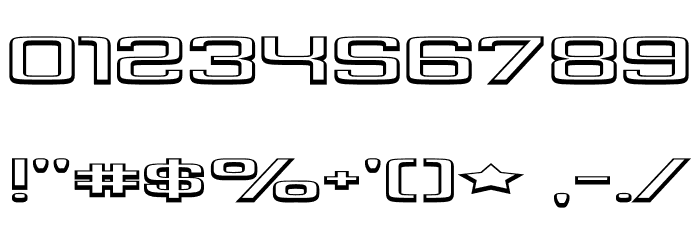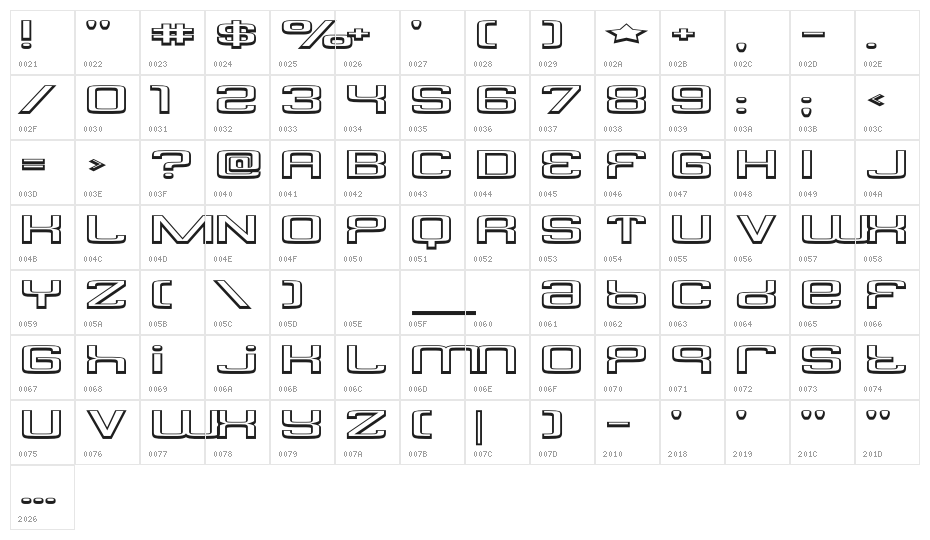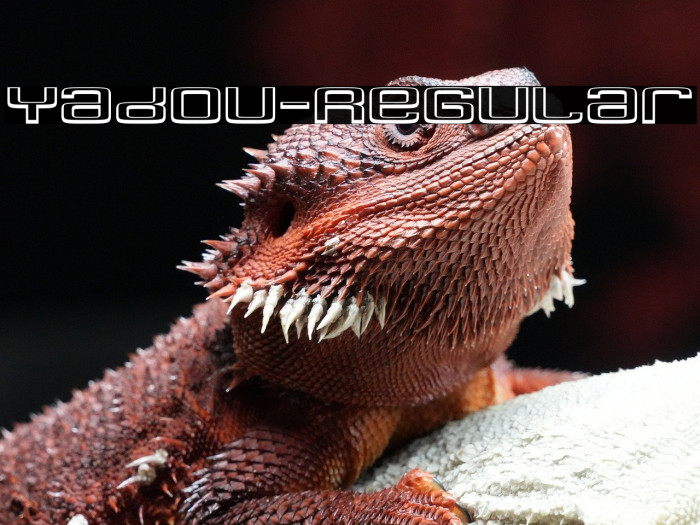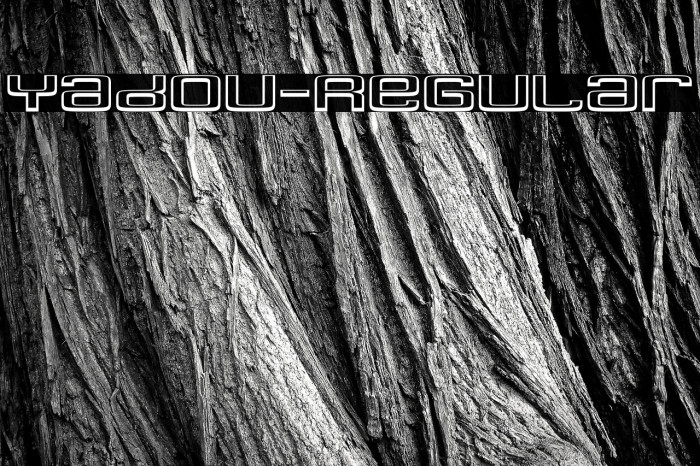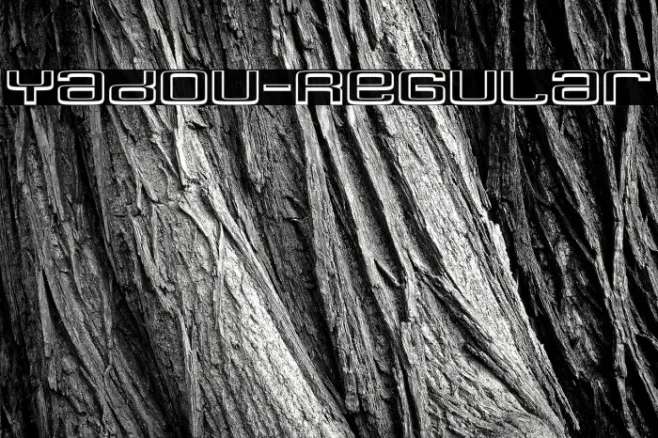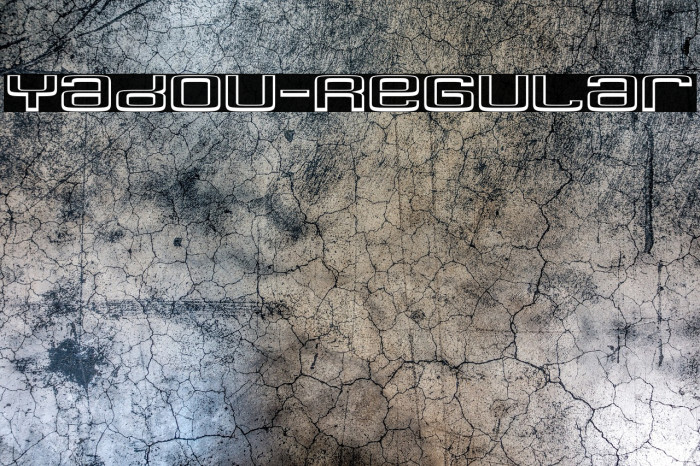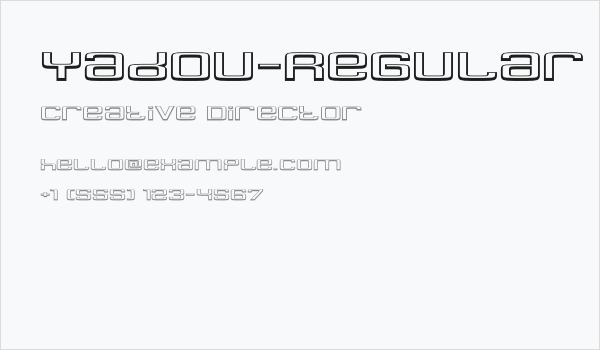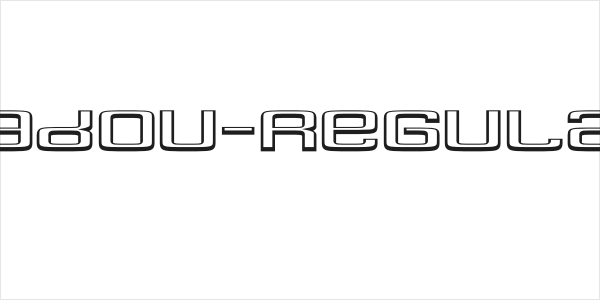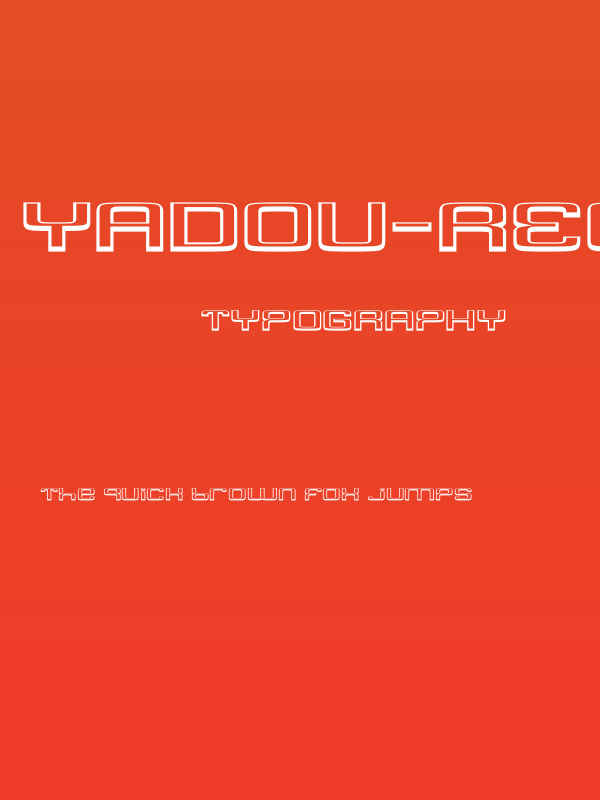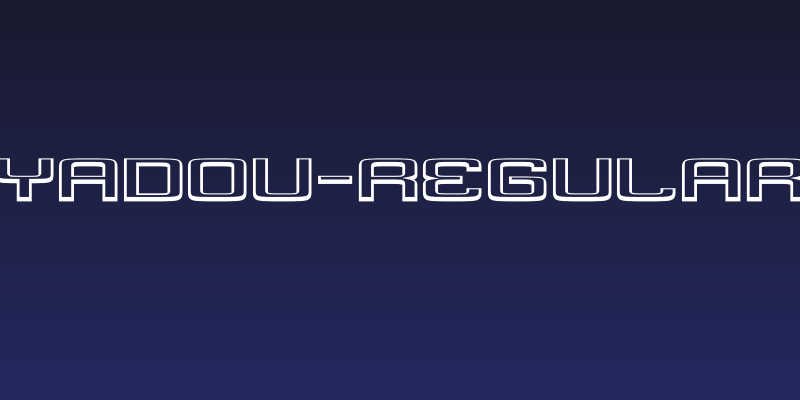
Yadou-Regular Font
Yadou-Regular Description
This font features a modern and futuristic design with a hollow, outlined style that gives it a unique and eye-catching appearance. The characters are constructed with geometric precision, featuring straight lines and sharp angles that create a sense of structure and order. The uppercase and lowercase letters maintain a consistent height, contributing to a uniform look across the typeface. The numerals and special characters are designed to match the overall aesthetic, ensuring cohesion throughout. This font is particularly suitable for projects that require a contemporary and tech-savvy feel, making it ideal for digital interfaces, branding, and advertising.
| Proposed Projects | Ideal for digital interfaces, branding, advertising, and tech-related projects. |